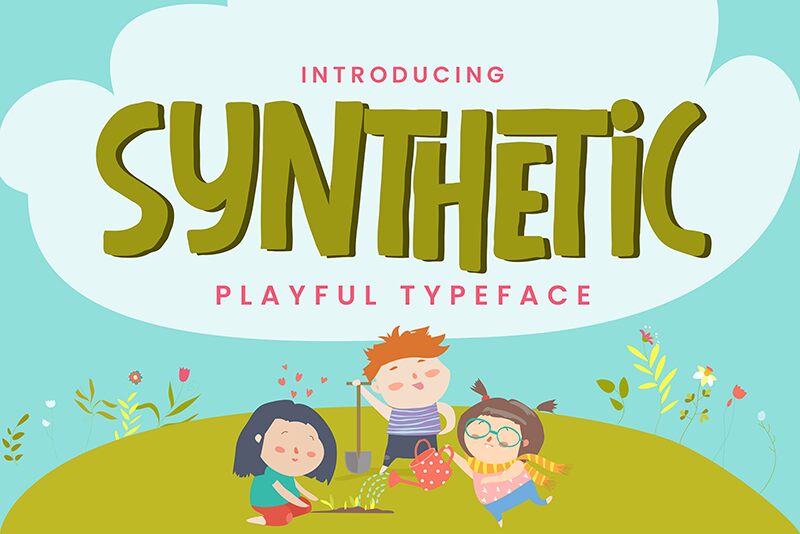
Synthetic
Synthetic by Gassstype stands out as a playful typeface with a modern twist, capturing the essence of creative freedom in its semi-bold, condensed form. This display font resonates with the dynamic flair of cartoon style, making it irresistibly attractive for a wide array of design projects. Its casual and quick stroke design lends a unique and authentic sans that effortlessly brings life to logos, posters, and personal projects seeking a contemporary edge.
With Synthetic, your designs will not just speak but shout modernity and uniqueness. The font’s cool characteristics and natural look are tailored for those desiring to infuse their work with an air of originality. It is the go-to choice for creators aiming to craft visual narratives that stand out - ideal for labels, branding, packaging or any canvas where the written word needs to pop with personality. Embrace Synthetic when your project demands attention, vibrancy, and a touch of whimsy.